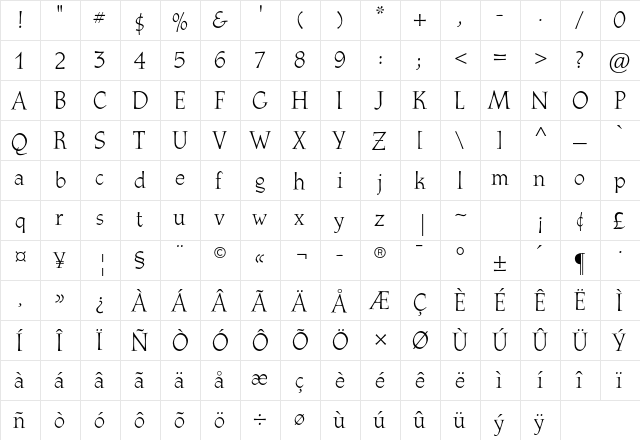
Athenaeum Std Regular
Design Context for Athenaeum Std Typeface
Athenaeum Std is a composed and adaptable typeface that performs quietly and consistently across a wide range of design contexts.
Pro Tip: Use Athenaeum Std in both headline and body roles to test its range before committing to a single application.